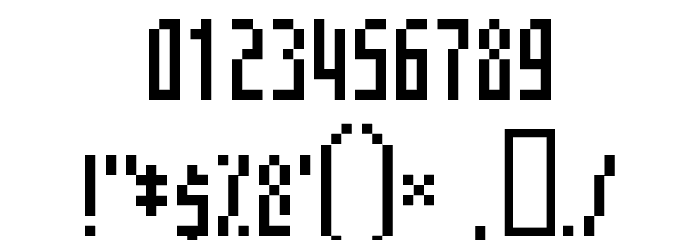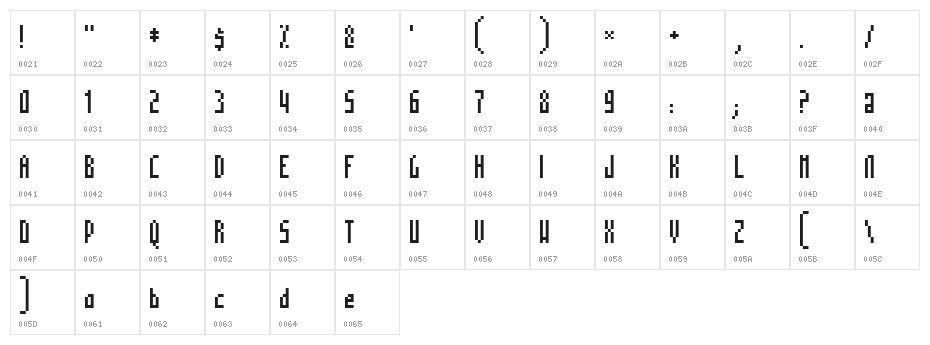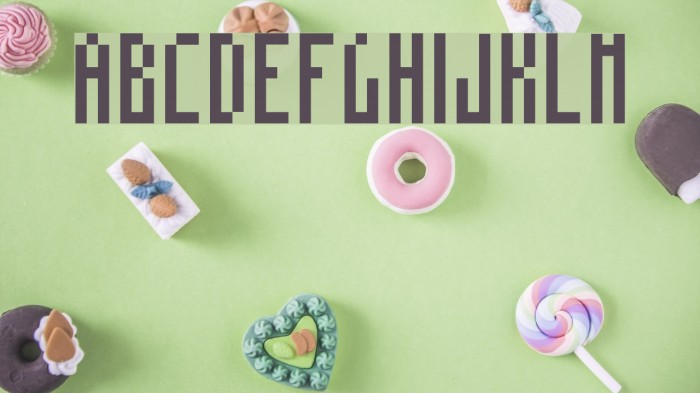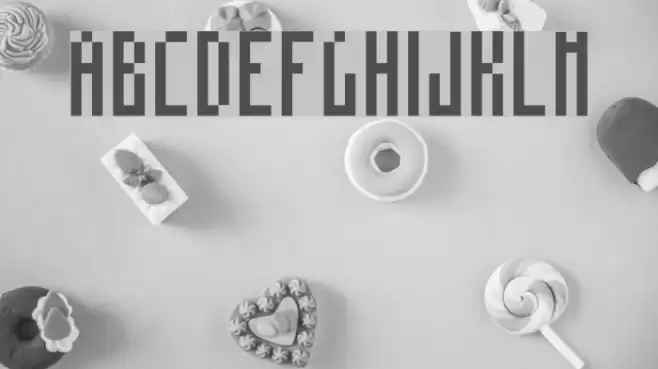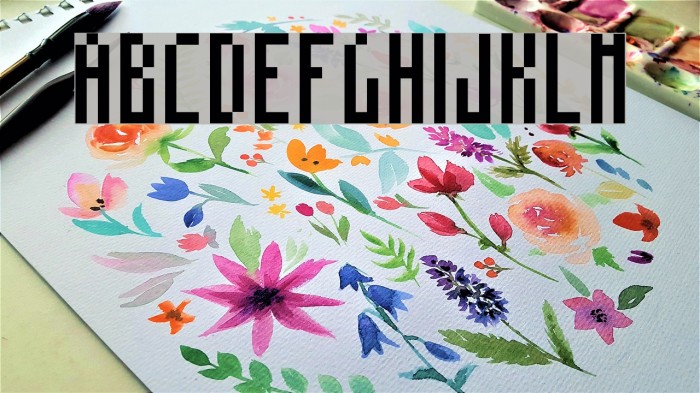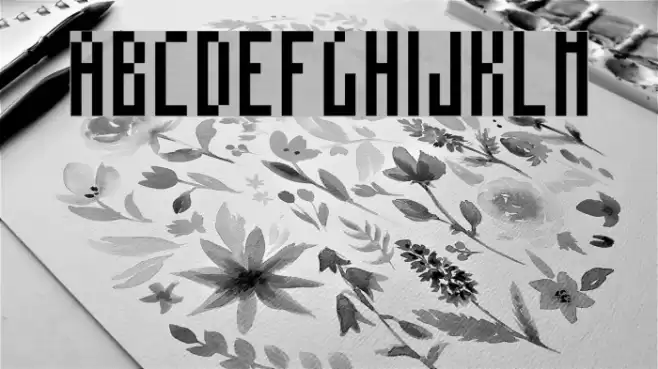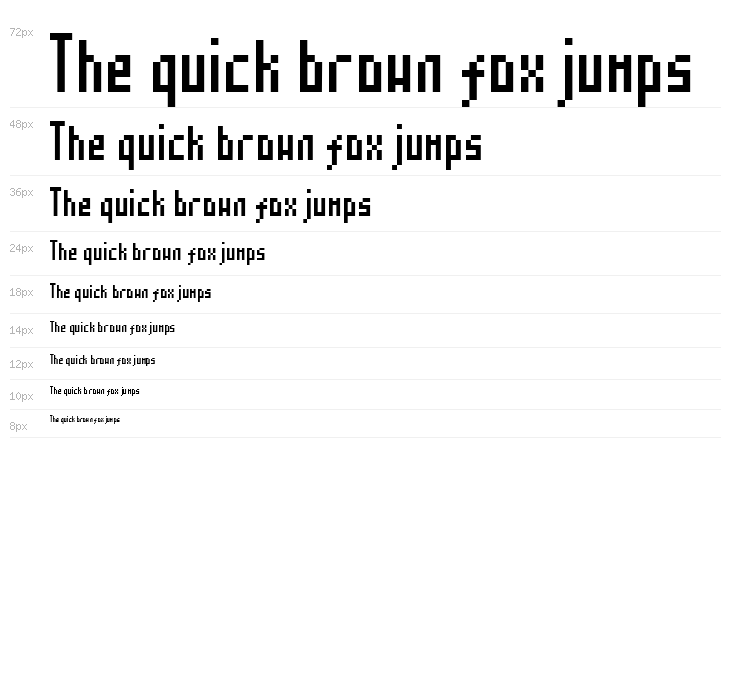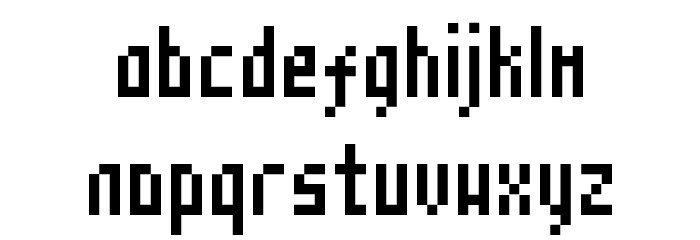
Mosaico Font
Mosaico Description
This font features a pixelated, blocky design reminiscent of early digital displays and video games. Each character is constructed with a grid-like precision, giving it a distinctly retro and technological feel. The uppercase and lowercase letters maintain a consistent height, with sharp angles and straight lines dominating the design. Numbers and special characters follow the same pixelated style, ensuring uniformity across all glyphs. This font's nostalgic aesthetic makes it ideal for projects that aim to evoke a sense of classic gaming or digital nostalgia.